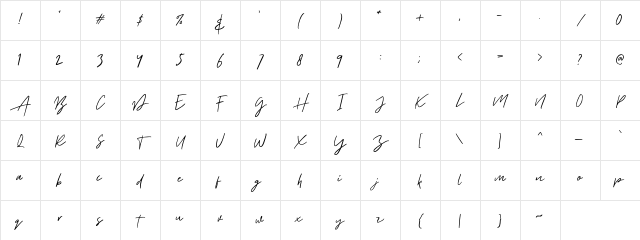
Aurelie Smith DEMO Regular Free Font
Aurelie Smith DEMO Regular
Foundry: Sarid Ezra
Designer: Sarid Ezra
Design Context for Aurelie Smith DEMO
Aurelie Smith DEMO is a composed and adaptable typeface that performs quietly and consistently across a wide range of design contexts.
Who designed the Aurelie Smith DEMO Regular font?